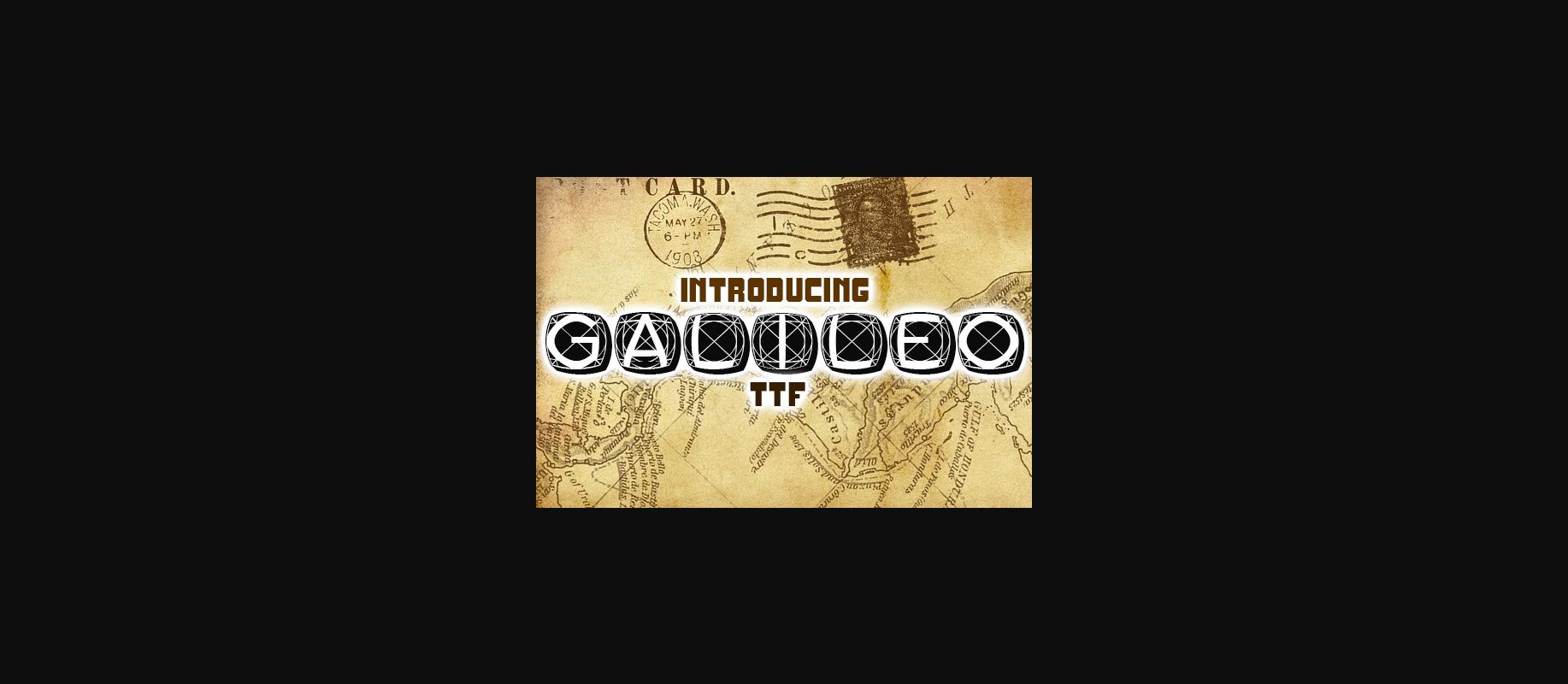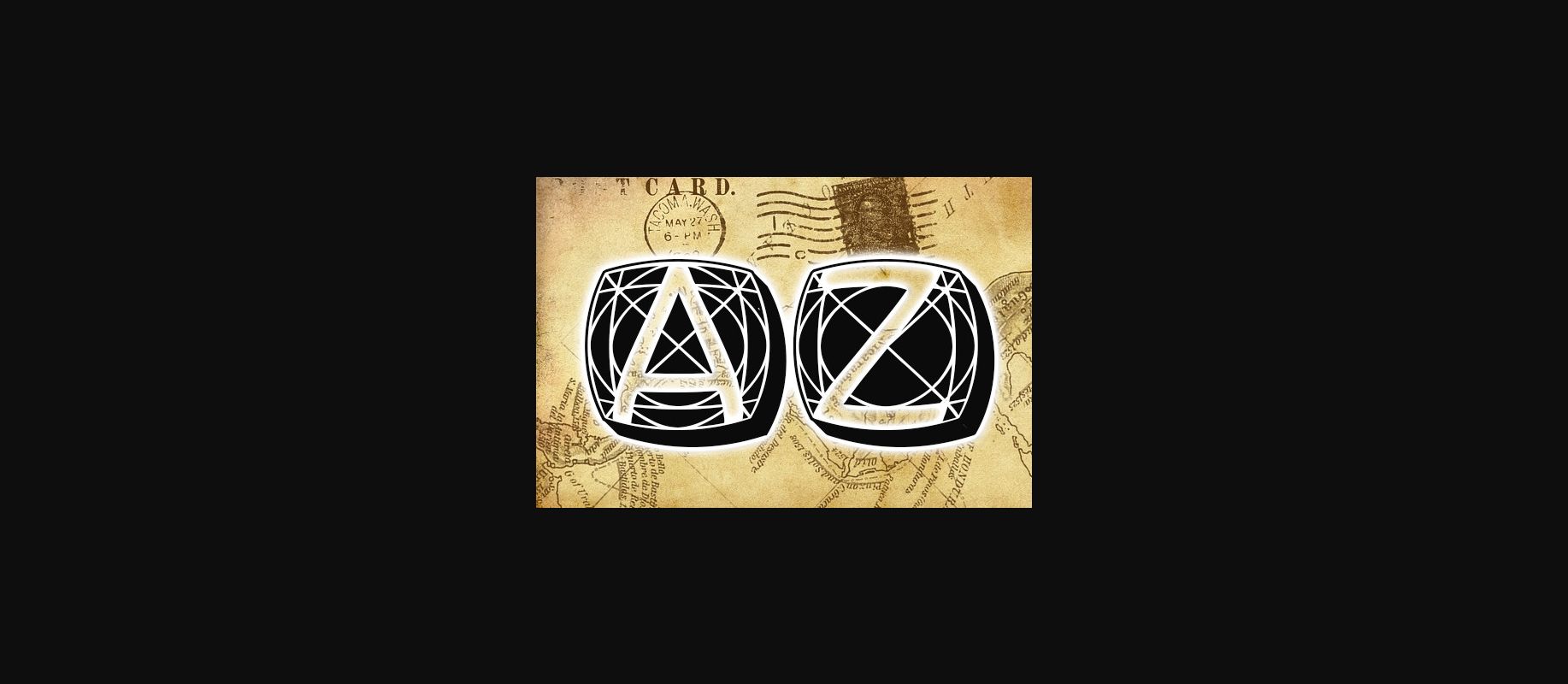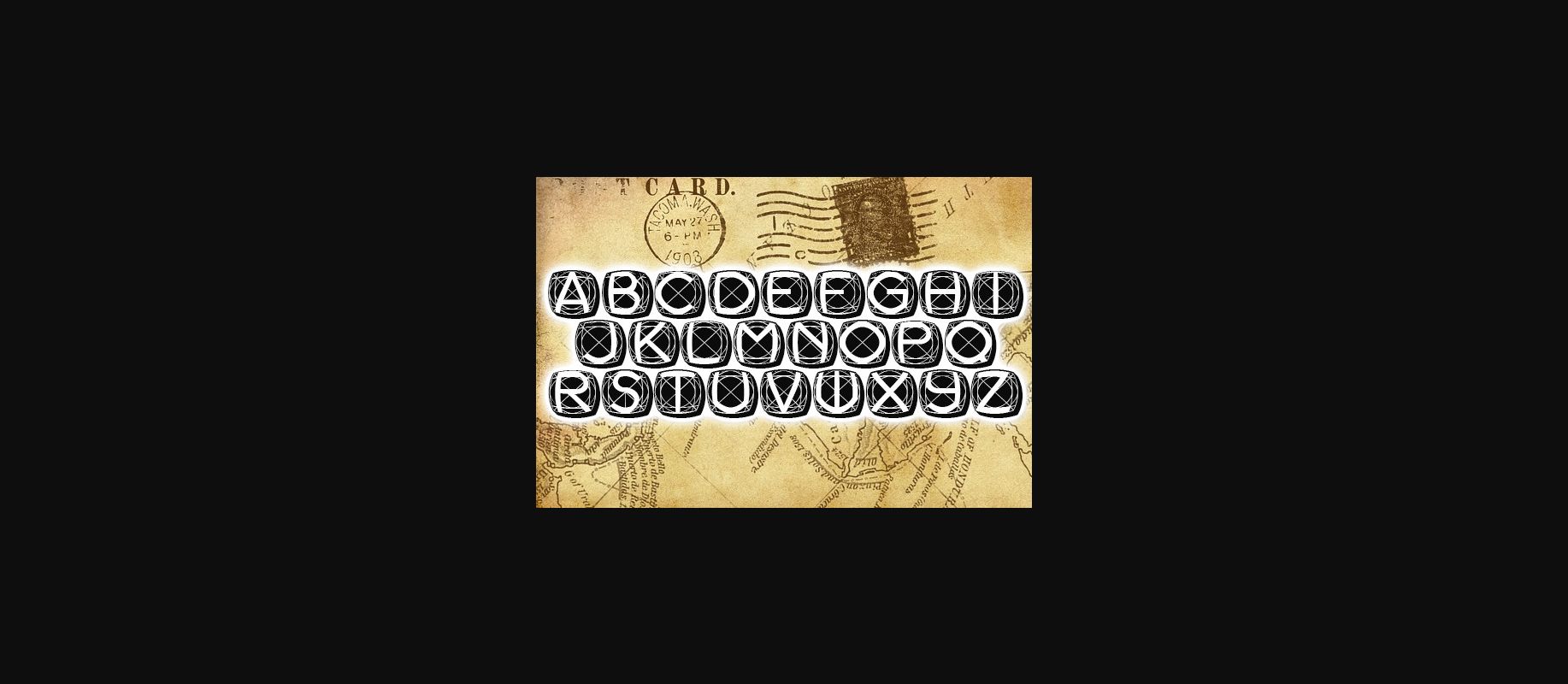
About Galileo Font
Galileo is a stylish decorative typeface that will look stunning on any of Your designs.
Use this font on posters, flyers, and t-shirts.